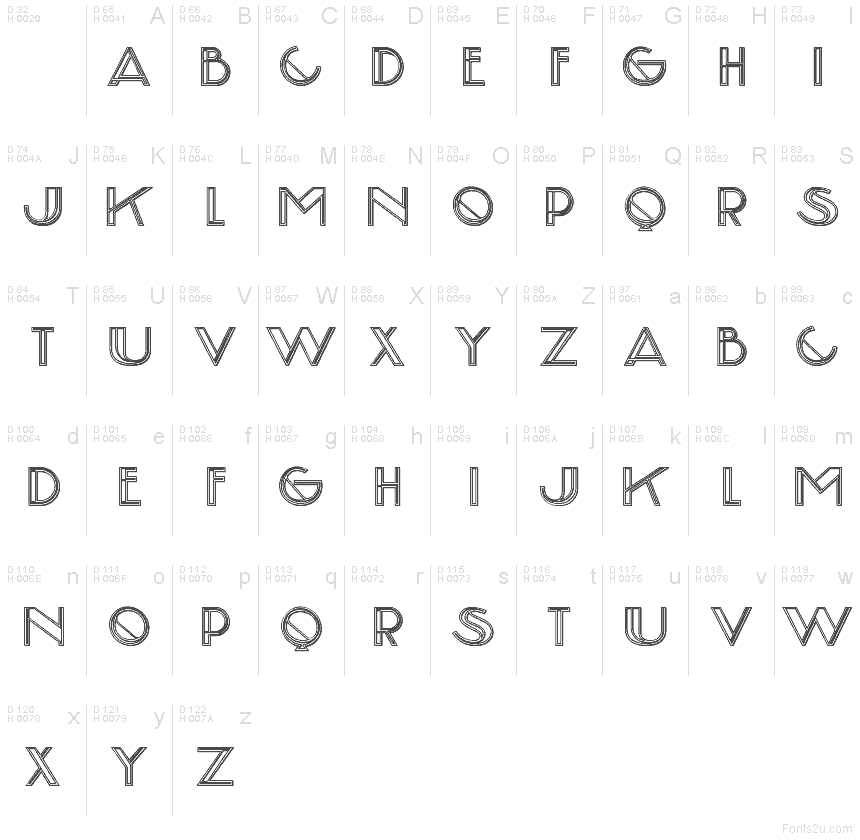
Louvre Extravagant Regular
Louvre Extravagant font by Vladimir Nikolic is a free modern display font with a retro style and expanded width. With its art deco-inspired design, the font has an elegant layered outline design to it that reflects a sophisticated aesthetic; therefore reminding of prestigious museums or other similar institutions.
The geometric approach makes this typeface perfect for branding, packaging, invitations, advertisements, social media content, posters, magazines and newspapers headlines, signage and store fronts.